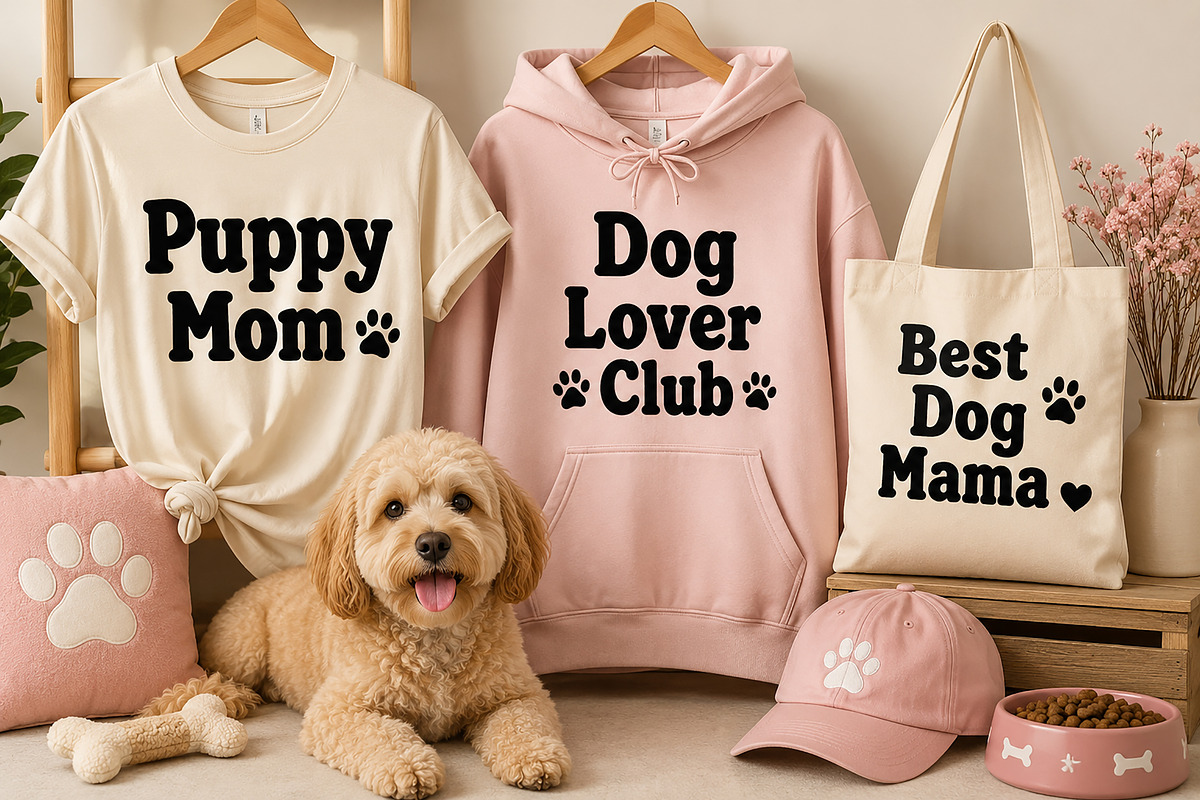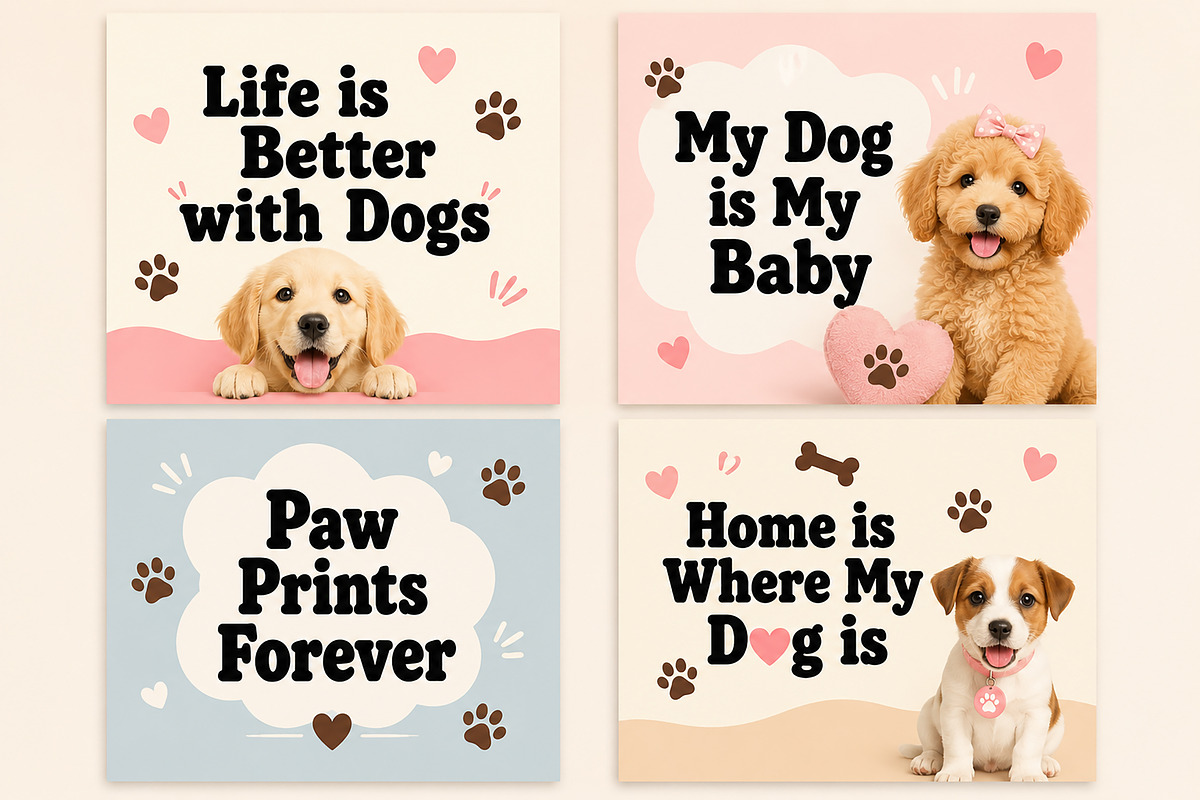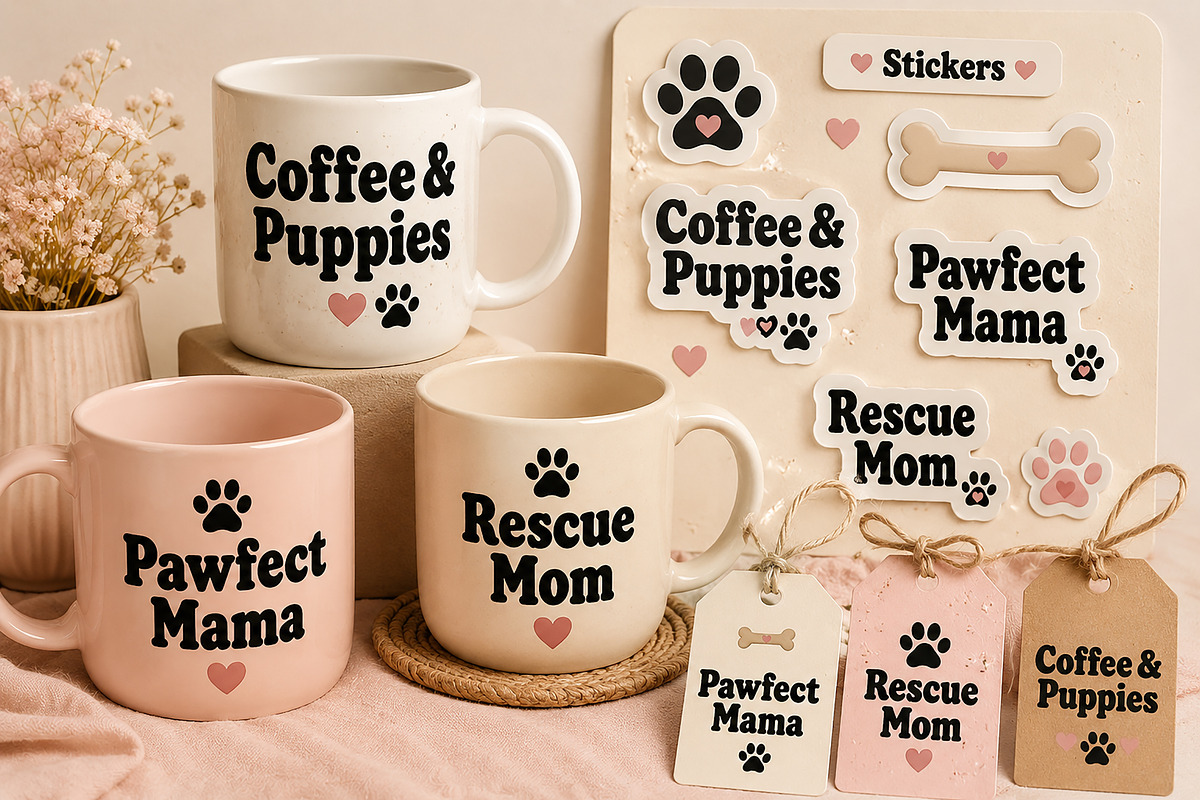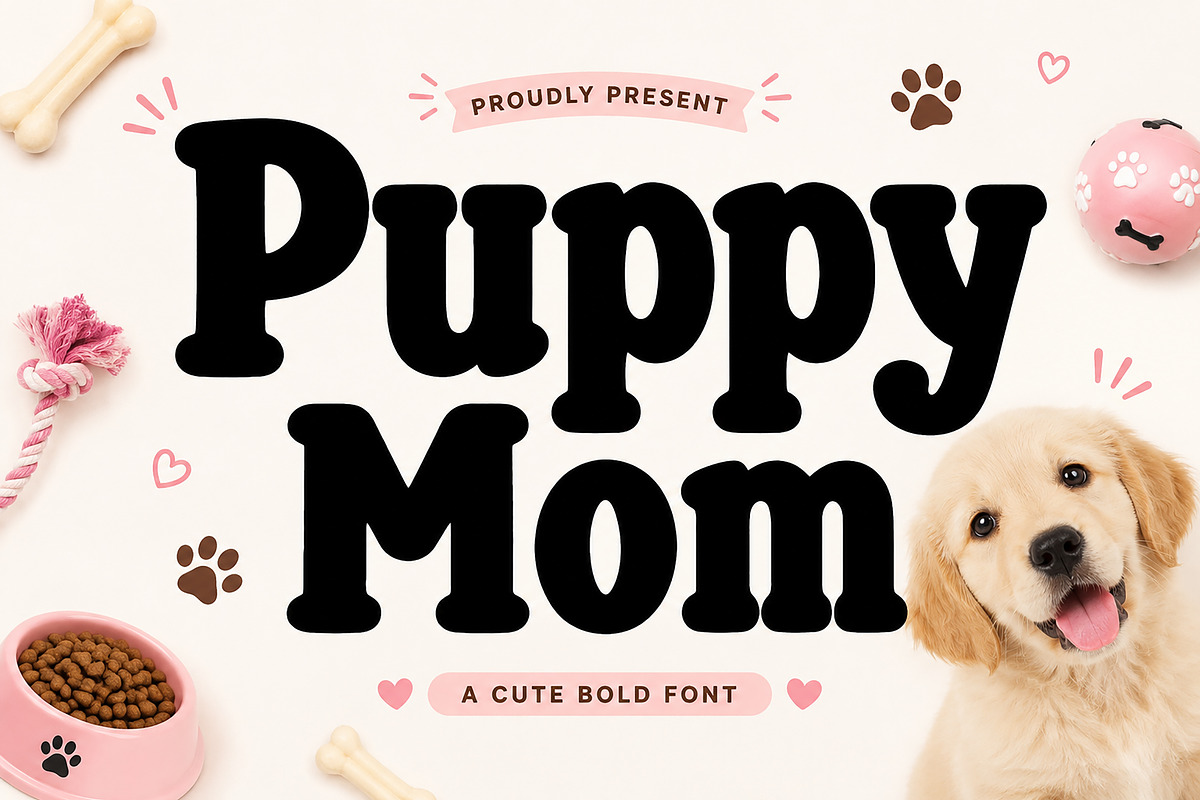
Puppy Mom
Puppy Mom – Cute Pet Lover Font
Puppy Mom is a cute and playful display font specially designed for dog lovers, pet-themed branding, and fun creative projects. With its bold rounded letterforms and charming personality, this font brings a warm, friendly, and adorable vibe to every design.
Perfect for t-shirts, mugs, tote bags, stickers, social media posts, pet shop branding, gift products, and print-on-demand designs. Whether you’re creating designs for puppy moms, dog communities, pet events, or handmade crafts, Puppy Mom adds a lovable and eye-catching touch.
This font works beautifully for both digital and print projects and is ideal for Etsy sellers, Cricut projects, and pet-inspired merchandise.
Pet Lover Designs
Dog Mom Quotes
T-shirt & Apparel
Mug & Sticker Designs
Tote Bag Prints
Pet Shop Branding
Greeting Cards
Print-on-Demand Products
Cricut & Silhouette Projects
Kids & Cute Designs
Packaging & Labels
Cute Bold Style
Easy to Read
Fun & Playful Look